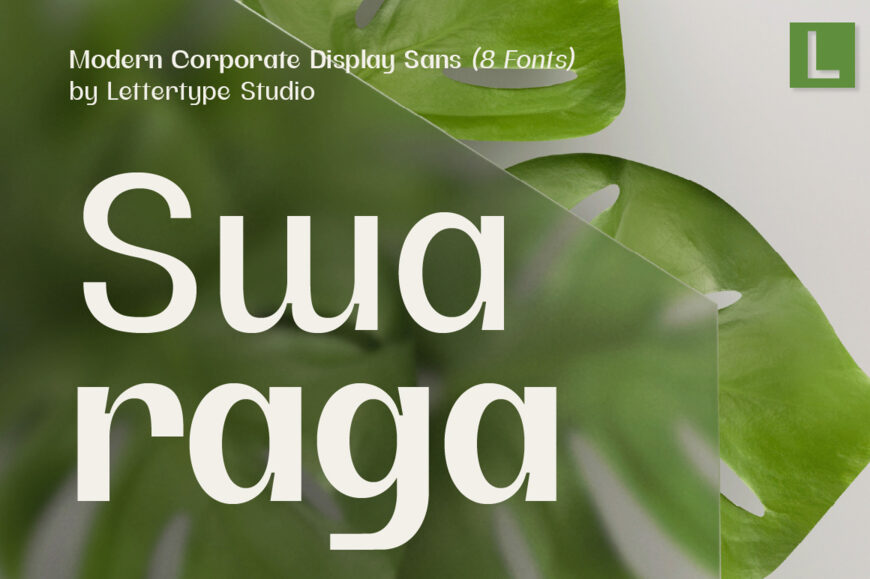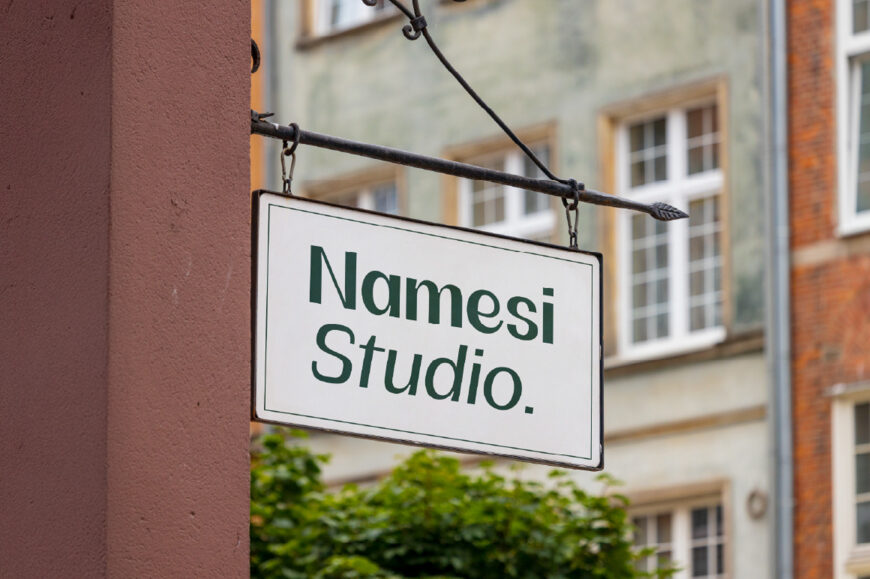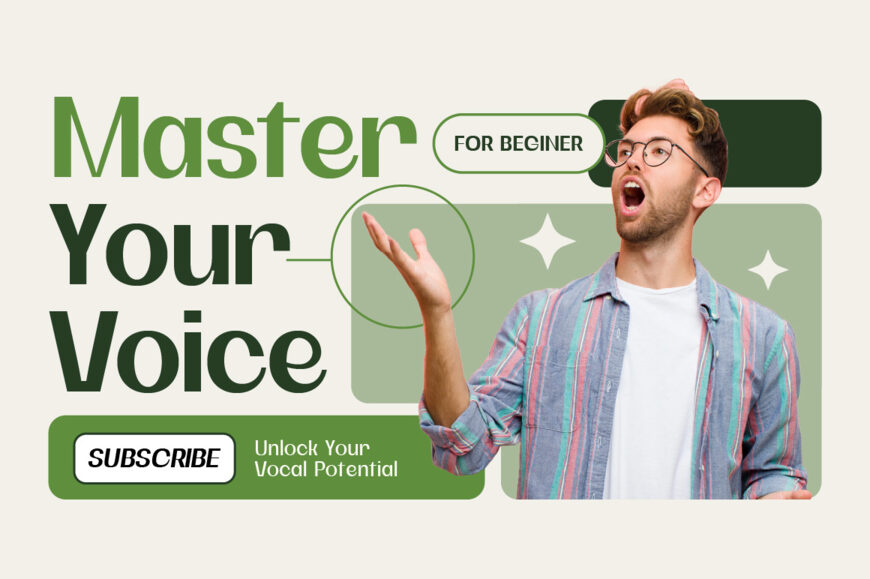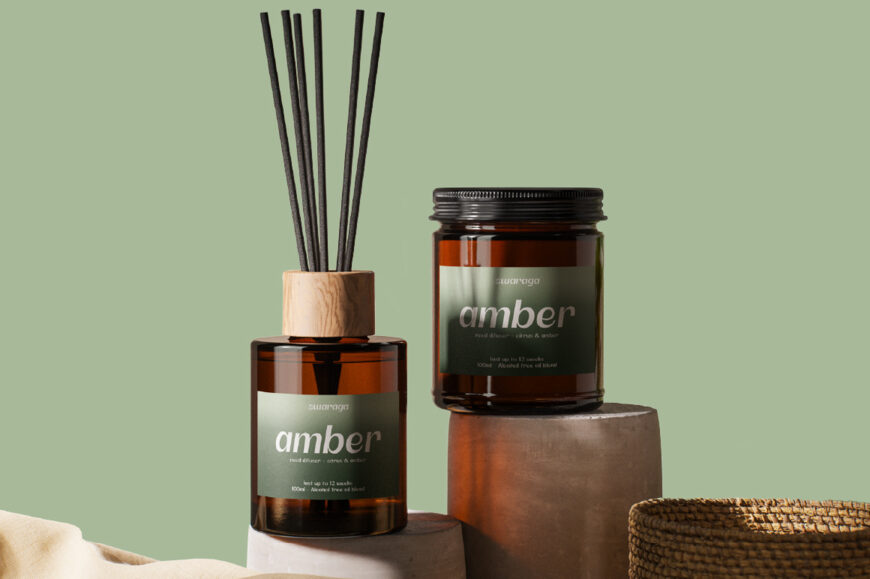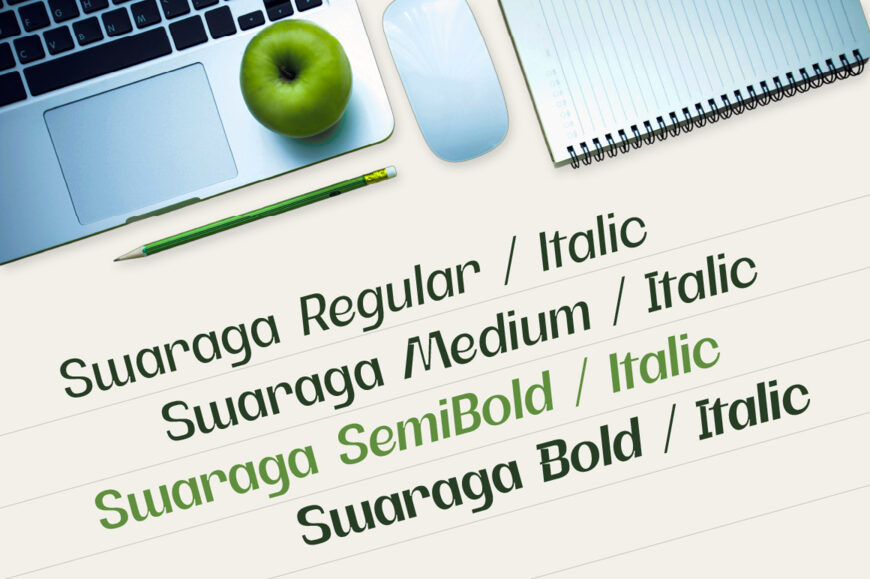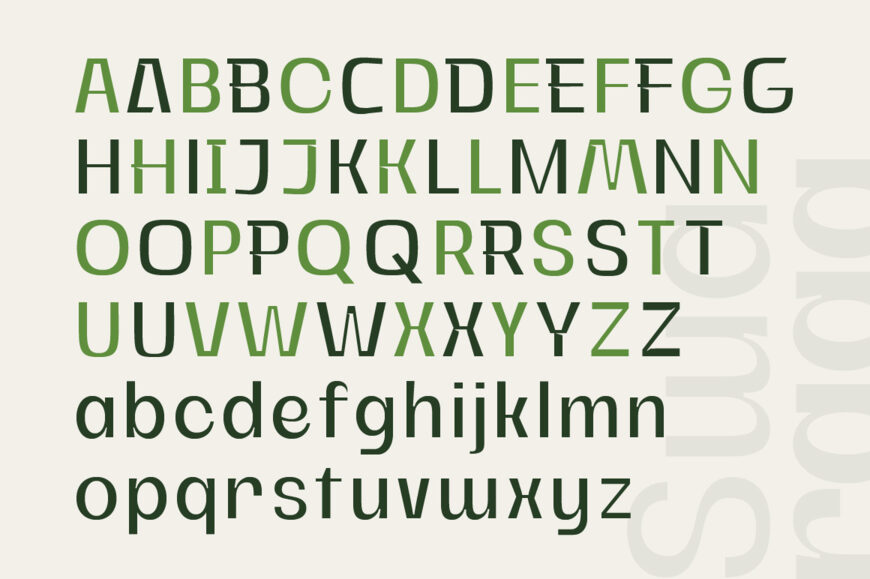
Swaraga Font Family
Swaraga is a contemporary corporate display sans created for designers who want a clean and confident typeface with a distinctive visual identity. Its construction combines modern sans serif principles with subtle Sundanese-inspired details, creating a typeface that feels contemporary while maintaining a professional and versatile appearance.
The A–Z uppercase character set includes distinctive alternate glyphs that can be used to add stronger visual emphasis to titles, headers, logos, posters, and other display applications. Swaraga comes in Regular and Slant styles, offering two complementary expressions for modern branding, editorial design, fashion, packaging, signage, campaigns, digital applications, and large-scale display typography.